Are you able to identify the type of this font? ChatGPT says it is not a standard font.
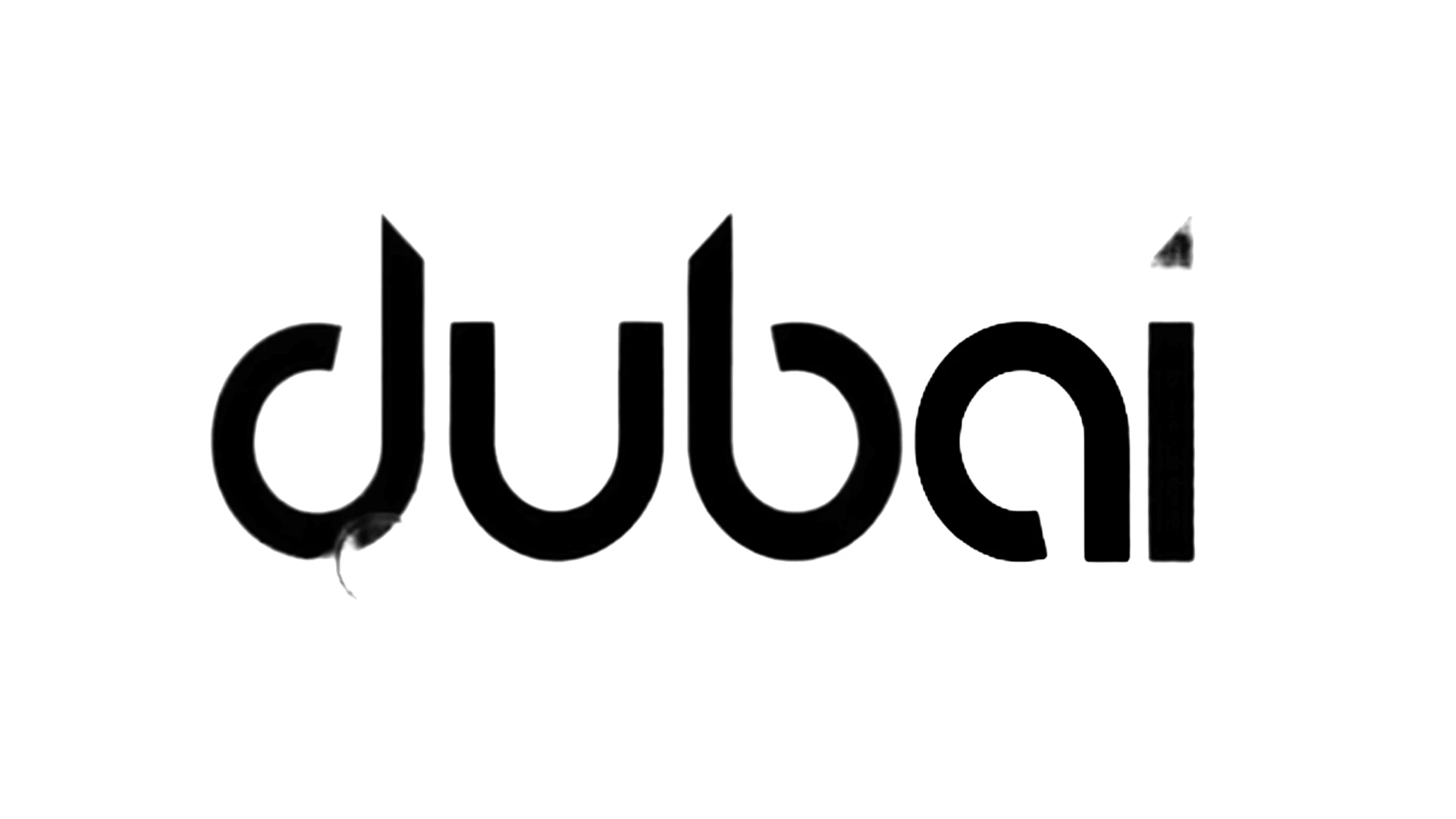
It might be worth trying to run the lettering sample through a few online font matching filters. However, some oddities I see in the "dubai" lettering make me think it could have been generated by an AI bot. The lettering looks pretty easy to recreate (and in a more clean manner).